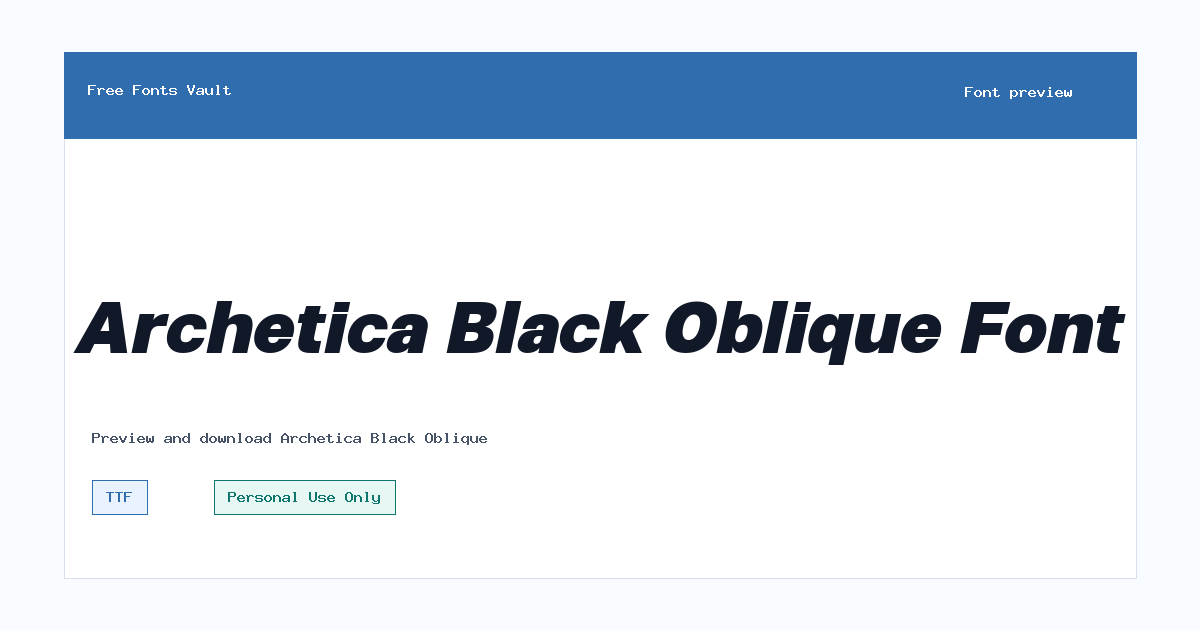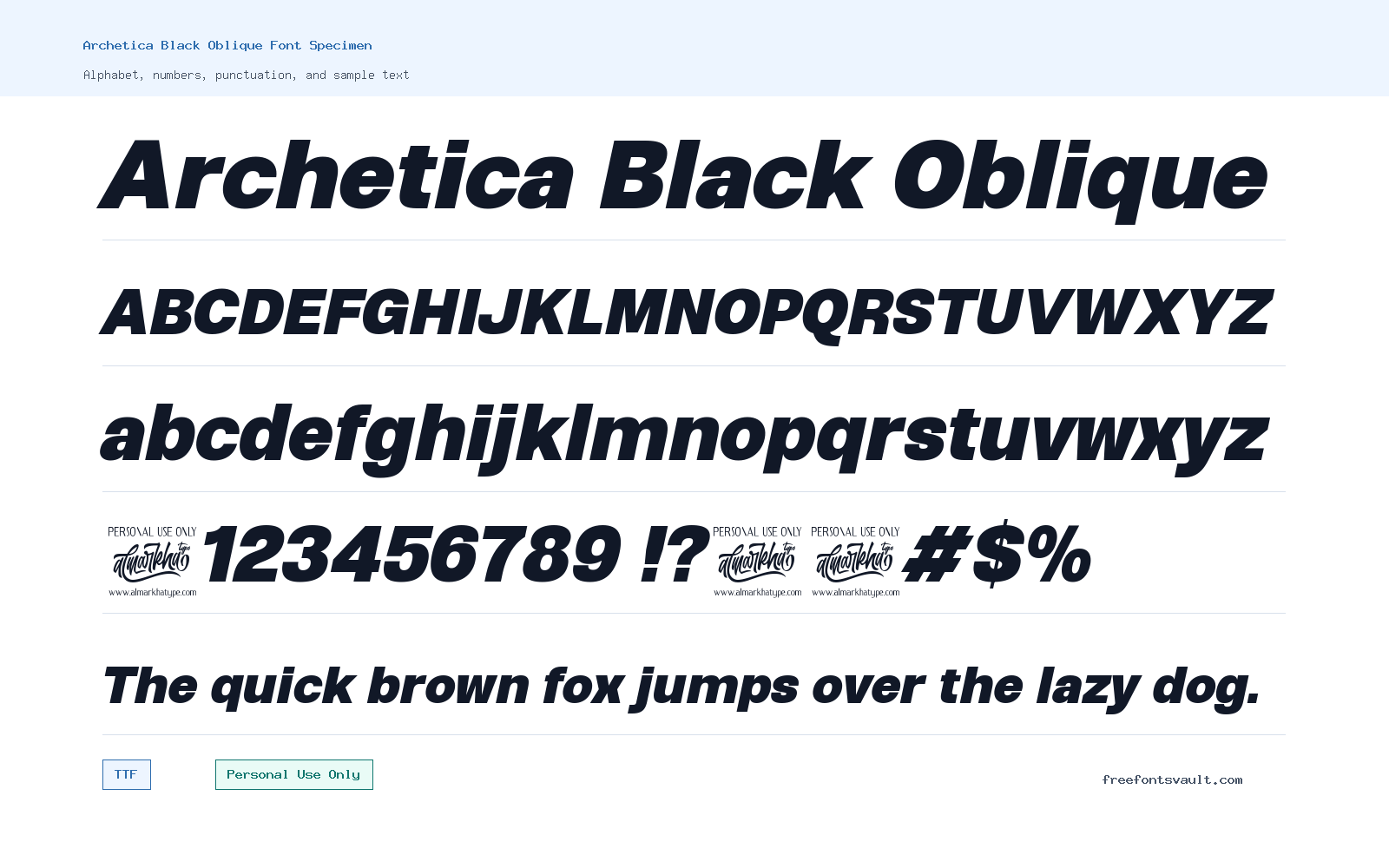
Archetica Black Oblique
- Designer Ridwan Fadilah & Malik Wisnu
- Foundry Almarkhatype
Archetica Black Oblique is a heavy slanted sans serif font with a strong display feel. Its bold weight and oblique angle make it useful when you want short text to look firm, modern, and energetic.
About Archetica Black Oblique
Archetica Black Oblique uses a 900-weight italic style, so it is built for impact rather than long reading. The letters lean forward and carry a dense black weight, giving headlines, nameplates, and short promotional lines a clear sense of motion. Because the style is both heavy and angled, it works best when the text has room to breathe. Try it in larger sizes first, then adjust spacing if the preview feels too tight.
For designers, this font can be a good test choice for poster titles, web hero mockups, bold social graphics, packaging concepts, and logo exploration. It is especially suited to short words, initials, labels, and compact headings where a strong sans serif shape is more important than paragraph readability. In logo work, treat it as an idea-development font unless you have the correct commercial license. For body text, menus, captions, or dense layouts, pair it with a calmer upright sans serif or a readable serif so the heavy oblique style does not compete with everything else on the page.
- Heavy 900-weight sans serif style with an oblique italic slant for bold display typography.
- Best suited to large-size typography such as headlines, poster titles, logo drafts, banners, and short web mockup text.
- Forward-leaning letterforms can add movement to compact words and phrases without needing extra decoration.
- Poster headlines and event-style title treatments
- Logo concepts, wordmarks, and brand exploration drafts
- Website hero mockups with short bold phrases
- Social media graphics, thumbnails, and announcement cards
- Packaging mockups or label concepts where a strong sans serif title is needed
- Display typography experiments that need a heavy italic look
Use Archetica Black Oblique where the words are short and the font can be shown large. Start by previewing names, titles, and two-to-five-word phrases. If the text feels crowded, increase tracking slightly or give the line more surrounding space. Avoid using it for long paragraphs because the black weight and oblique angle can become tiring to read. For pairing, choose a simple upright companion font for descriptions, buttons, captions, and body copy. A neutral sans serif can keep the design clean, while a restrained serif can add contrast without fighting the main title.
What kind of font is Archetica Black Oblique?
It is a heavy oblique sans serif display font. The listed style is italic, with a 900 font weight.
What is Archetica Black Oblique best used for?
It works best for short display text such as headlines, posters, logo concepts, web hero mockups, social graphics, and bold title treatments.
Who designed Archetica Black Oblique?
The font is credited to Ridwan Fadilah & Malik Wisnu, with Almarkhatype listed as the foundry.
Is this a good font for logo design?
It can be useful for logo concepts and wordmark experiments because of its bold slanted shape. For a real business logo or client project, confirm and obtain the correct commercial license first.